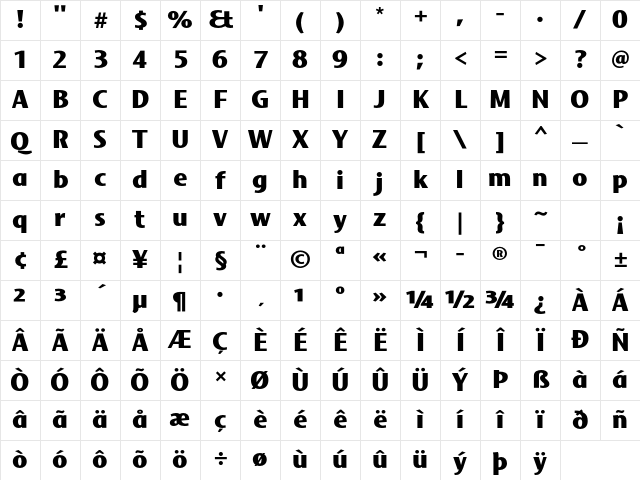
Mosquito Formal Std Black
Design Context for Mosquito Formal Std
Mosquito Formal Std is a composed and adaptable typeface that performs quietly and consistently across a wide range of design contexts.